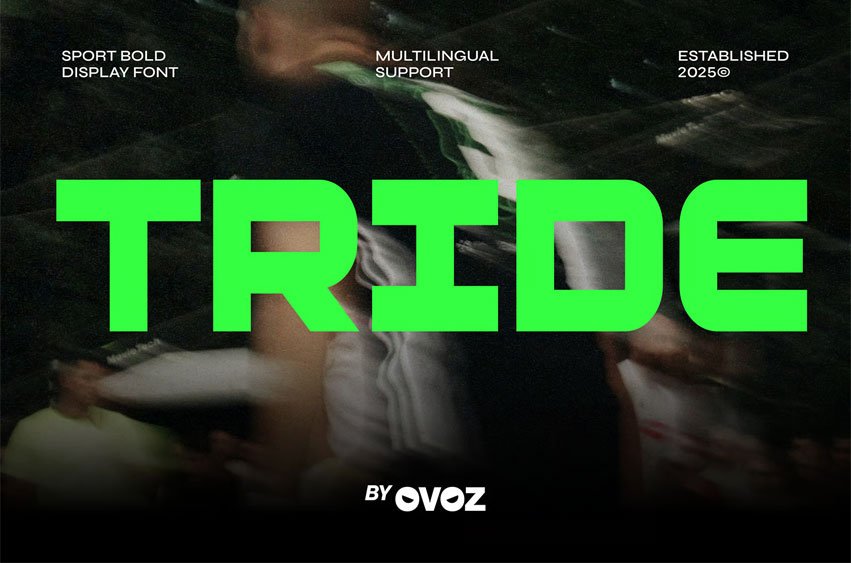
Tride Sports Font is a sport–bold display font built for maximum power and visual impact. Its thick block structure, solid stance, and clean geometry give every design a strong athletic presence suited for sports branding across football headlines, basketball posters, baseball graphics, soccer promotions, and high-energy racing visuals. TRIDE’s bold sport personality delivers instant clarity and force, making it ideal for gym campaigns, fitness merchandise, golf events, and sporty editorial layouts where strength and confidence are essential.
Engineered for versatility in competitive environments, TRIDE excels in jersey numbers, biker tournament graphics, hockey signage, and promotional materials for fight events. Its commanding weight and straightforward athletic rhythm create a dependable foundation for multi-sport branding, race identities, and performance-driven design systems. Whether used for team branding, training visuals, or fast-paced marketing, TRIDE ensures every message stands out with authority, durability, and unmistakable athletic boldness.
Bold Moves, Strong Letters — where dynamic sport energy meets modern precision to create a fearless competitive identity.